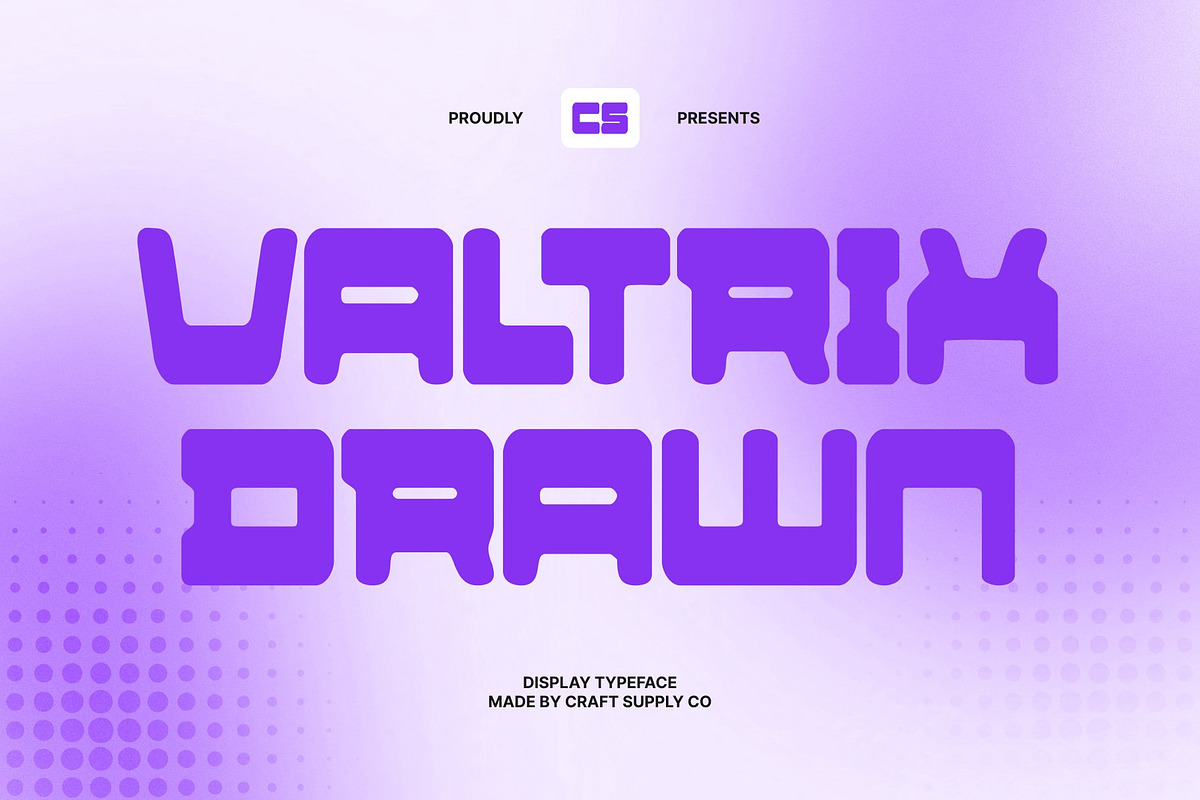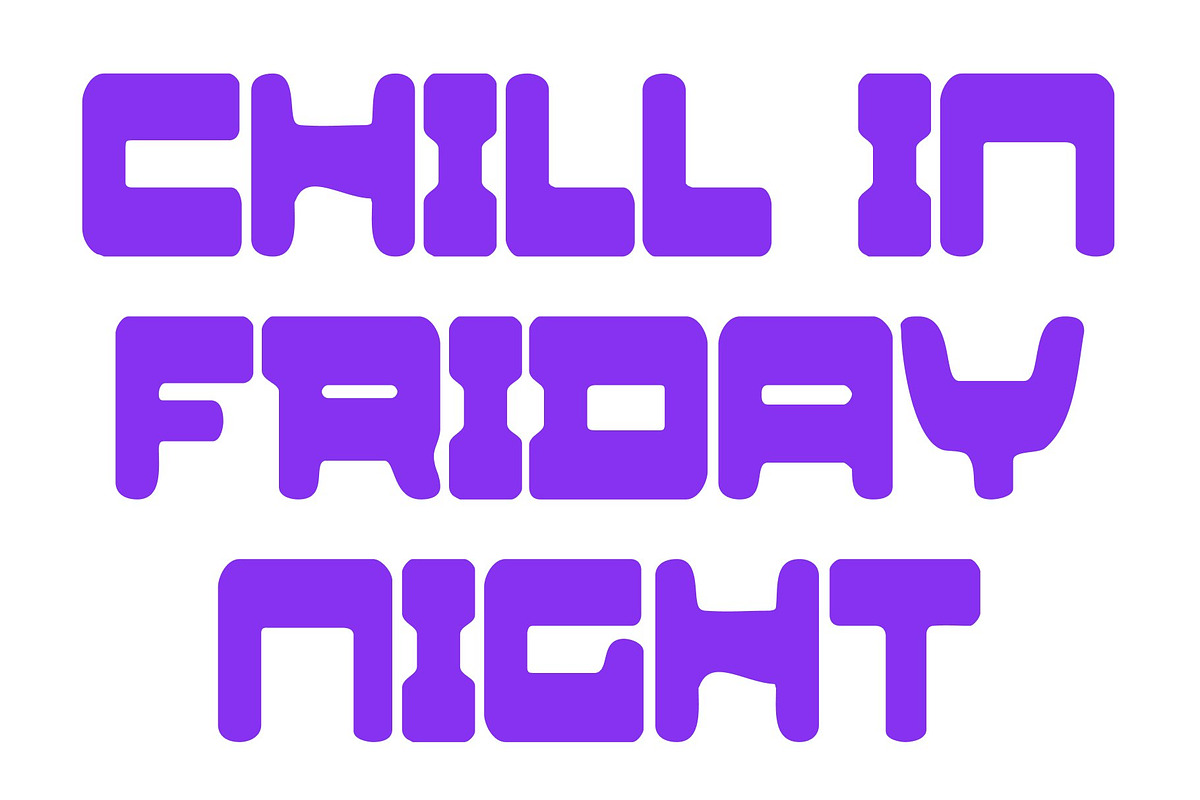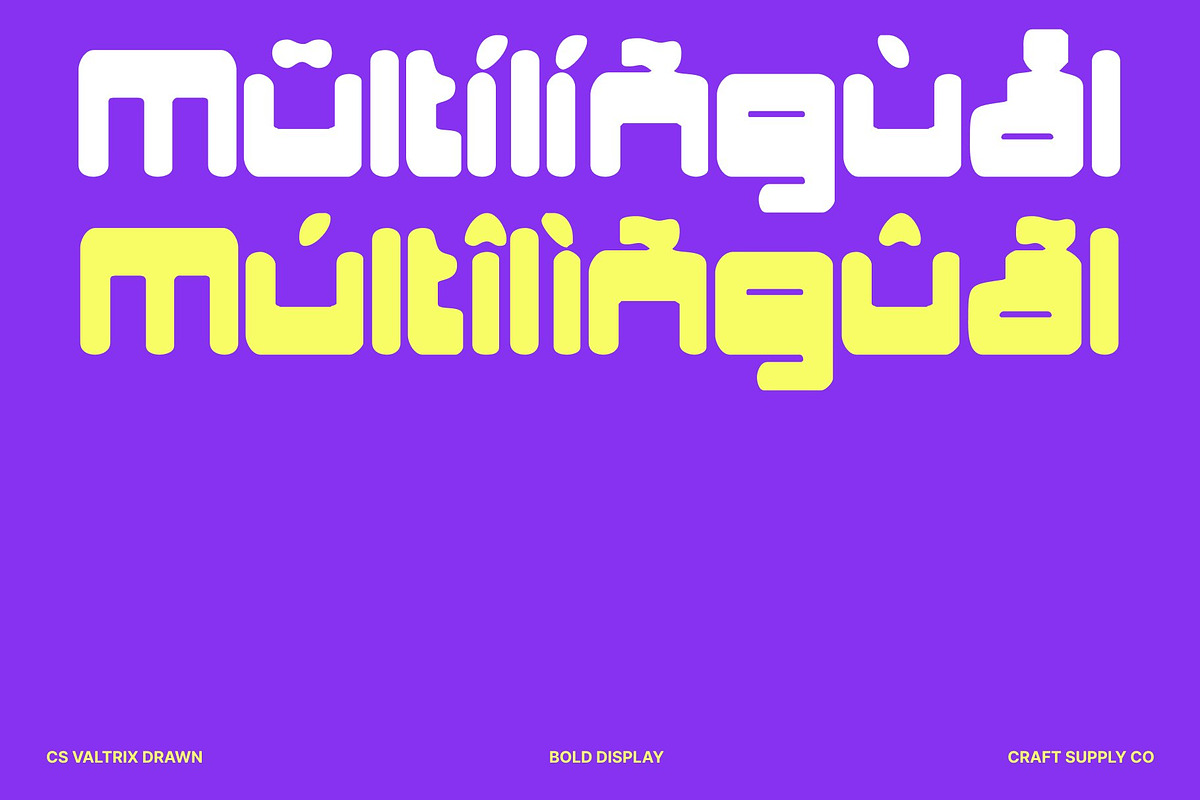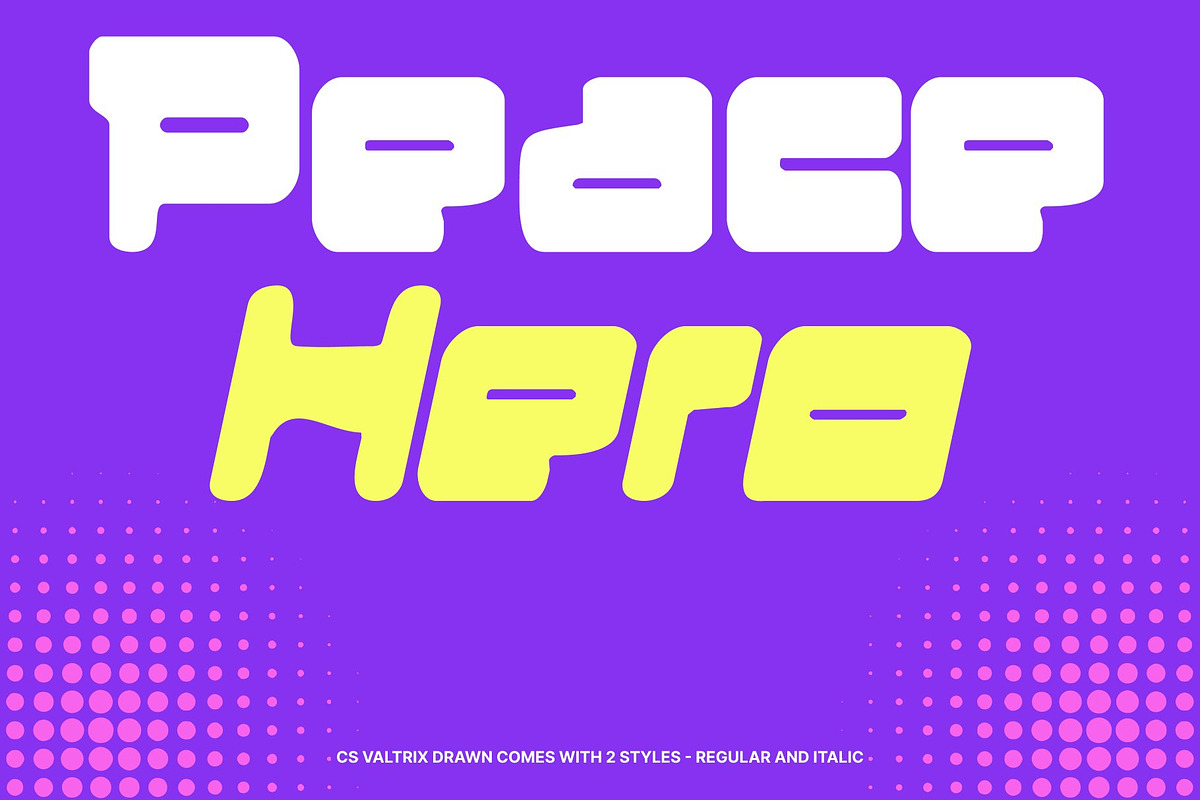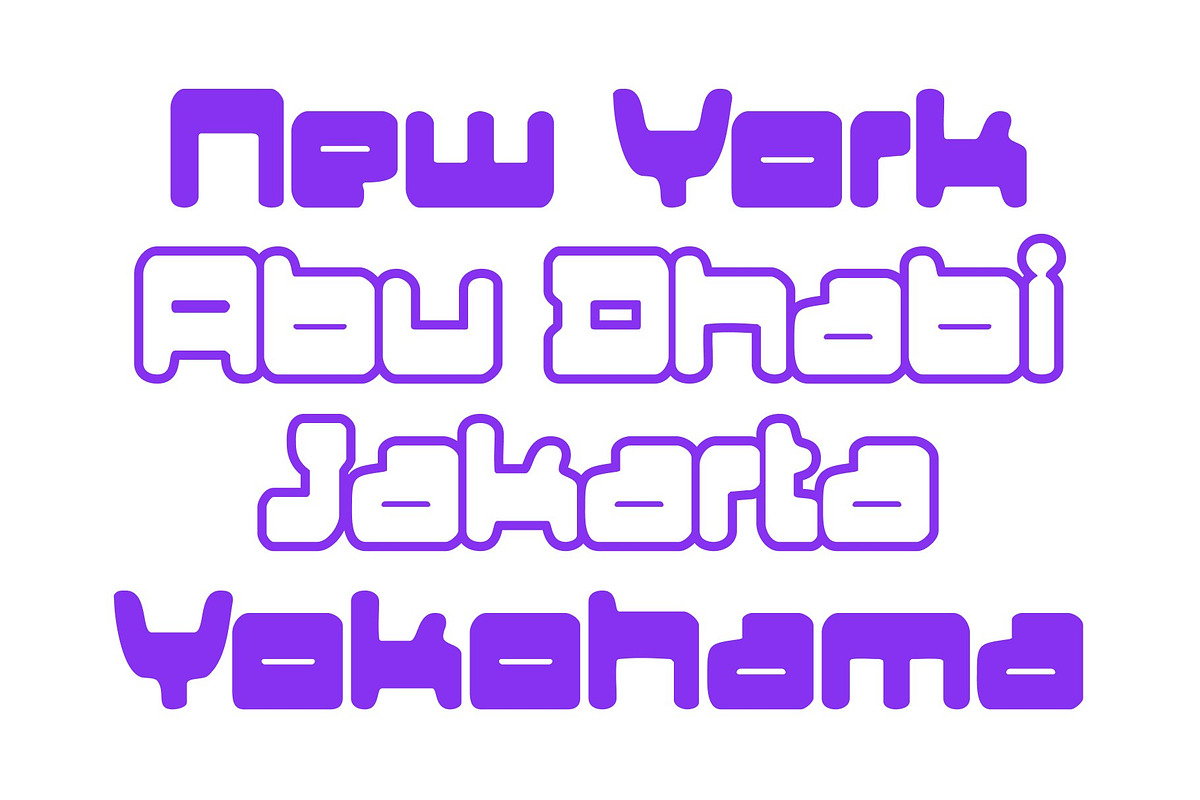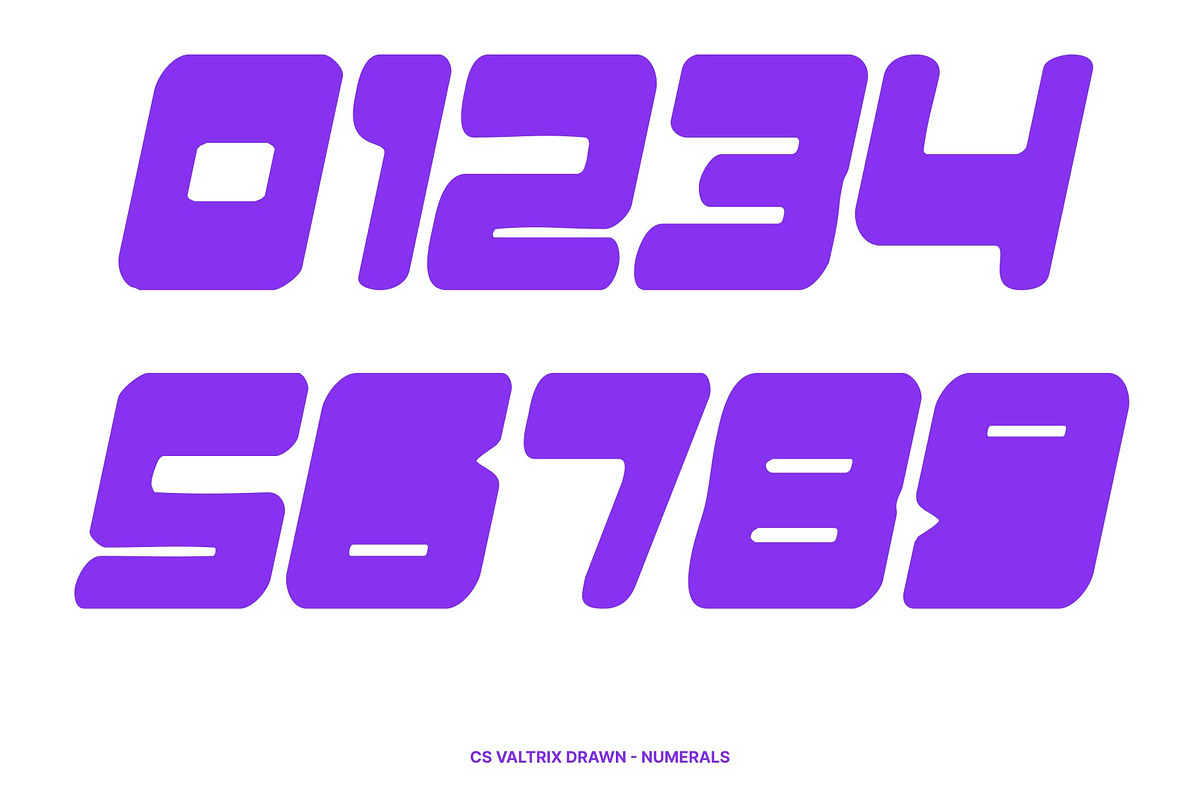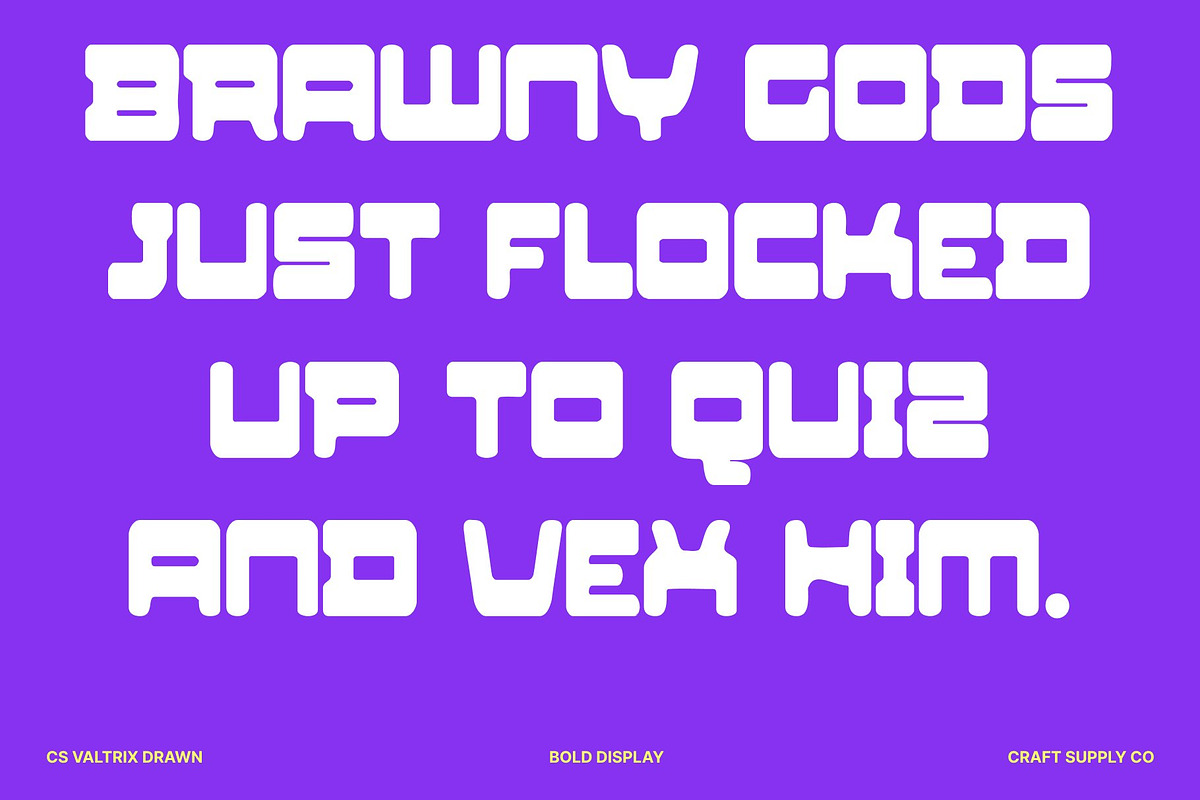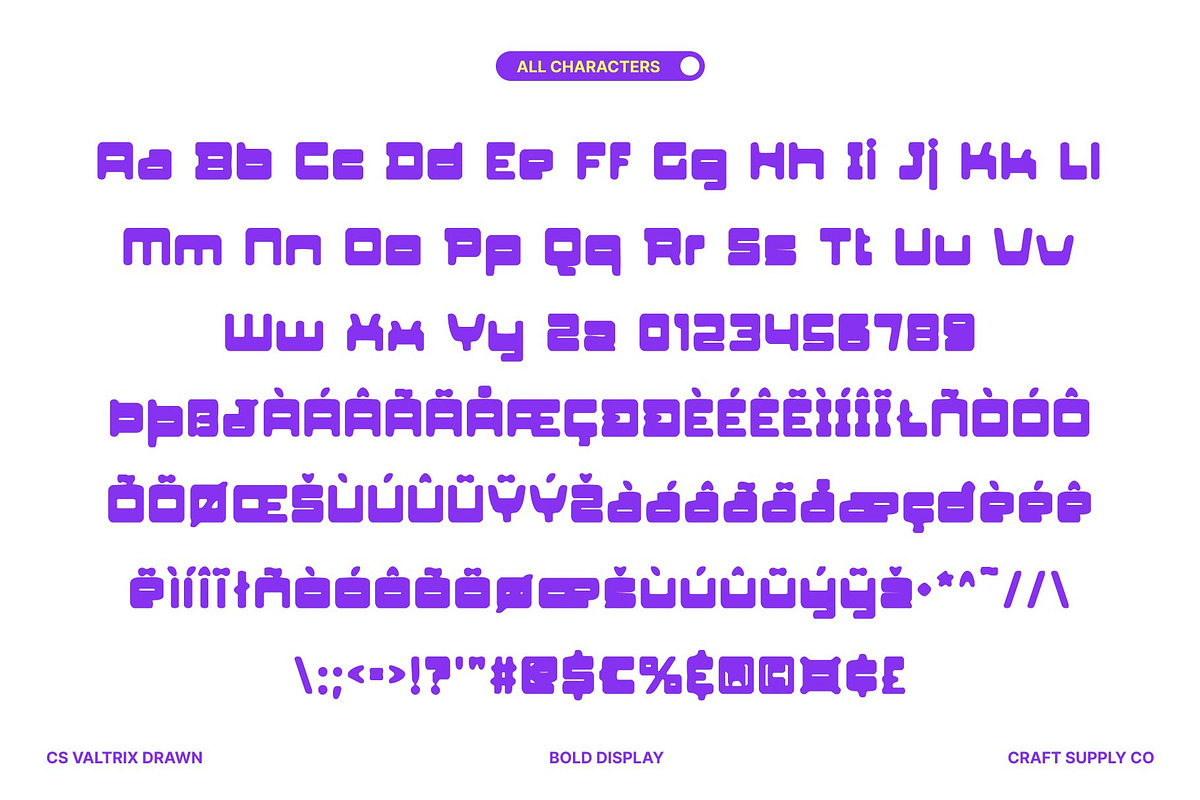
CS Valtrix Drawn
CS Valtrix Drawn – Y2K Display Font with Futuristic Energy and Hand-Drawn Attitude
Vibrant Y2K Display Font for the Digital Era This is a bold and dynamic Y2K-inspired display font that captures the iconic spirit of early 2000s design. Built with expressive shapes and futuristic confidence, it radiates digital energy and playful nostalgia. The drawn effect adds a raw, human touch, giving each letter a unique character that feels lively, experimental, and full of personality.
Bold Outlines with Retro-Futuristic Style Strong letterforms and confident outlines give this font a striking visual presence. Smooth curves and sleek geometry balance its bold structure, creating a look that feels both retro and forward-looking. The drawn texture subtly breaks perfection, enhancing its cyber-pop and tech-inspired aesthetic with organic charm.
Dynamic Energy with Expressive Detail Inspired by the vibrant visuals of Y2K culture, this font carries a sense of motion, glow, and digital optimism. The hand-drawn nuances introduce variation and depth, making the type feel more alive and expressive while maintaining its futuristic appeal.
Perfect for Modern, Nostalgic, and Trend-Driven Designs Ideal for digital branding, music visuals, posters, party graphics, fashion concepts, and social media content, this font transforms text into a bold visual statement. Whether channeling nostalgic Y2K vibes or futuristic creativity, this font delivers a vibrant, energetic, and trend-setting typographic experience.